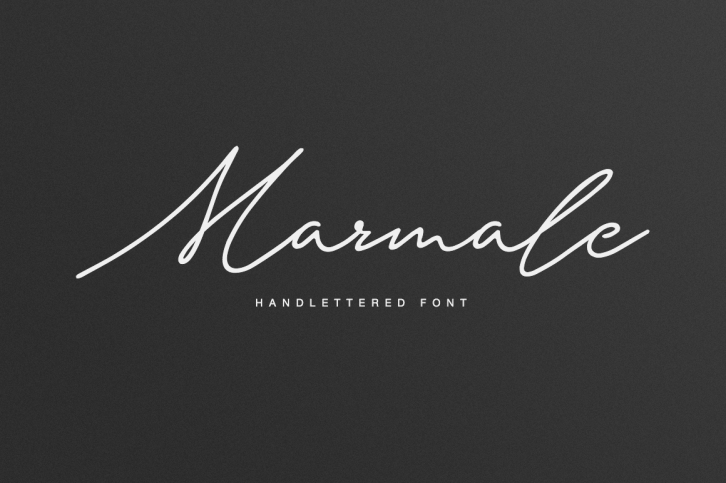
Marmale is a beautiful font that was designed by MediaLab. It's a great choice for designers and creatives who need such a font. It was released on October 24, 2017 and the file size is 5.70 MB. Marmale may give a more youthful, expressive and casual look to your project. It is a very beautiful, refined, elegant, and high-quality font.